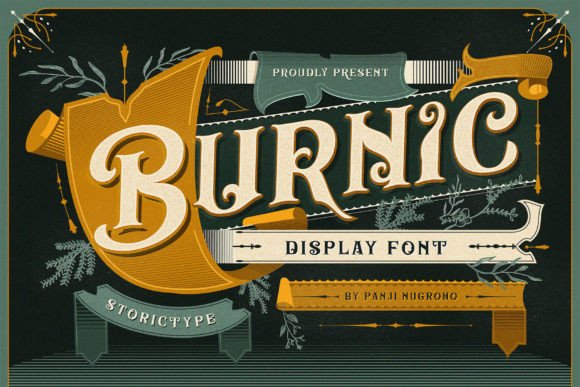
Introducing Burnic, the vintage classic display typeface that will transport your designs to a bygone era. Created by storictype, this font is the perfect choice for those seeking a touch of nostalgia and timeless elegance.
Drawing inspiration from antique, mixed Victorian, and art deco periods, Burnic Typeface offers a unique blend of decorative shapes and intricate details. Each letter is meticulously crafted to capture the essence of vintage design, ensuring that your creations stand out from the crowd.
With Burnic, the possibilities are endless. Whether you're designing posters, logos, prints, quotes, headers, clothing, labels, or packaging, this font will elevate your work to new heights. Its versatility allows you to effortlessly evoke the charm and sophistication of yesteryears, adding a touch of class to any project.
What sets Burnic apart is its ability to evoke emotions and create a sense of nostalgia. As you browse through the collection, you'll be transported back in time, envisioning the elegant ballrooms of the Victorian era or the glamorous parties of the art deco period. The intricate details and ornate shapes of Burnic Typeface will captivate your audience, leaving a lasting impression.
Imagine a poster that grabs attention with its vintage-inspired typography, instantly transporting viewers to a world of old-world charm. Picture a logo that exudes sophistication and class, making your brand unforgettable. With Burnic, these dreams become a reality.
Get ready to immerse yourself in the captivating world of vintage design. Burnic Typeface is the key to unlocking a treasure trove of possibilities. Let your creativity run wild as you harness the power of this font to create designs that leave a lasting impact.